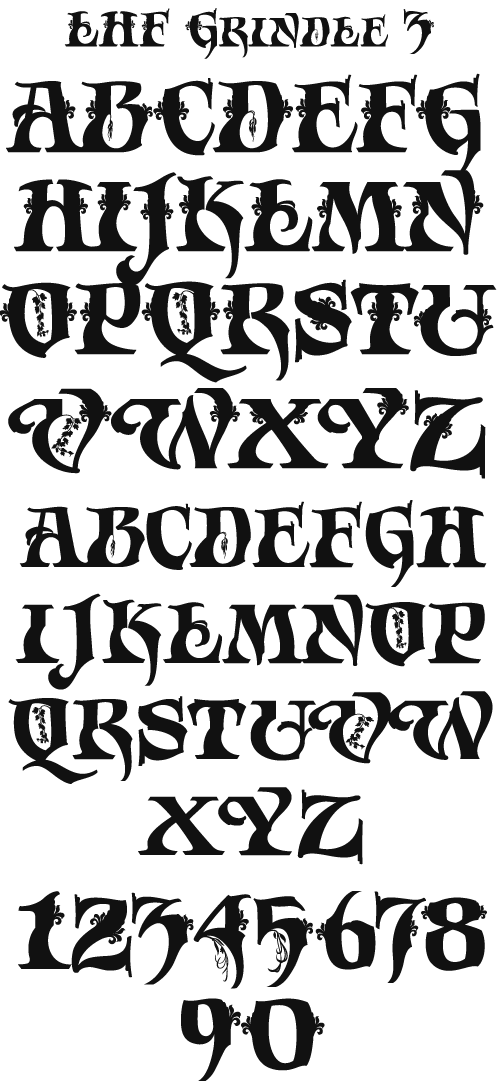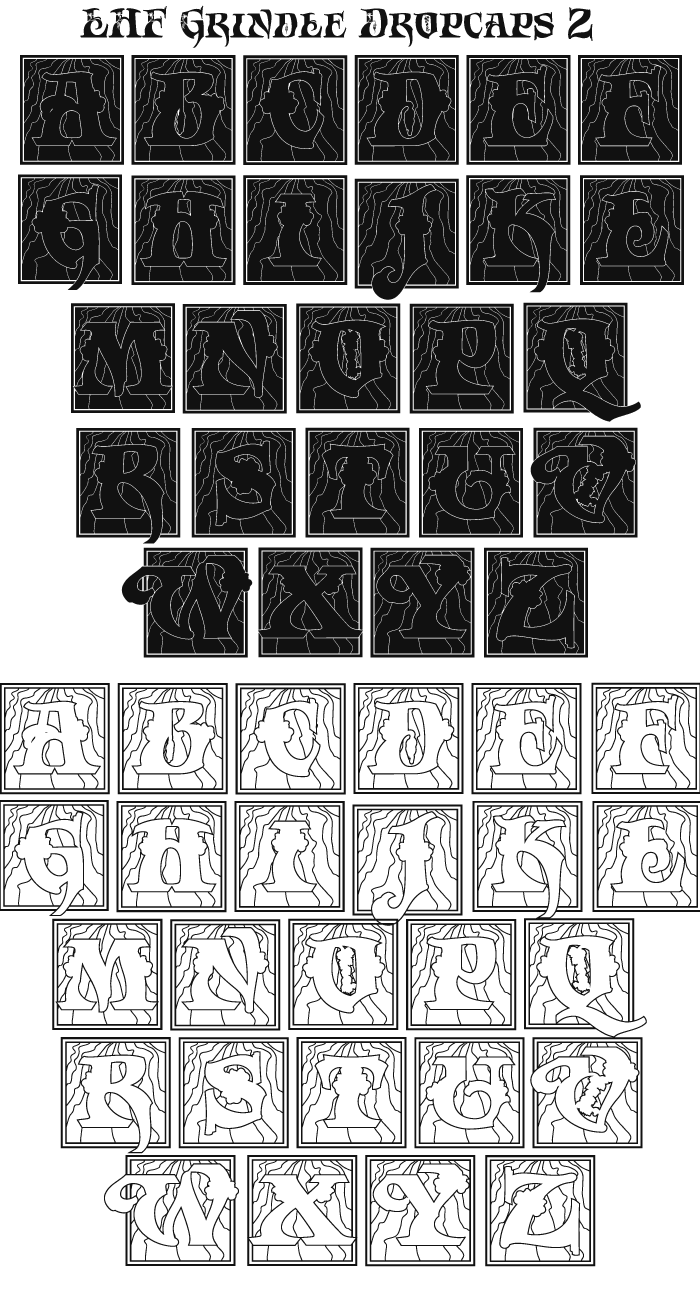
![]() ![]() Grindle 1 ![]() The first version of David Parr's font set. Grindle Regular version with lowercase. ![]() ![]() Grindle 2 ![]() Large caps with small caps (no lowercase). ![]() ![]() Grindle 3 ![]() Large and small caps with small flourishes on the sides of the letters. ![]() ![]() Grindle 4 ![]() Large caps with small caps with lines in the letters. ![]() ![]() Grindle 5 ![]() Large caps with small caps with lily flowers inside the letters. ![]() ![]() Grindle Dropcaps 1 ![]() Dropcaps for the Regular Caps. Fits all but Flourish Caps. See instructions on left for usage. ![]() ![]() Grindle Dropcaps 2 ![]() Dropcaps for the Flourish Caps. Does not fit Regular Caps. See instructions on left for usage. ![]() ![]() Grindle Alternates FREE! Contains alternate A, T and O as shown above. Click on image for all alt characters. Free with any Grindle font. ![]() ![]() | ![]() ![]() |